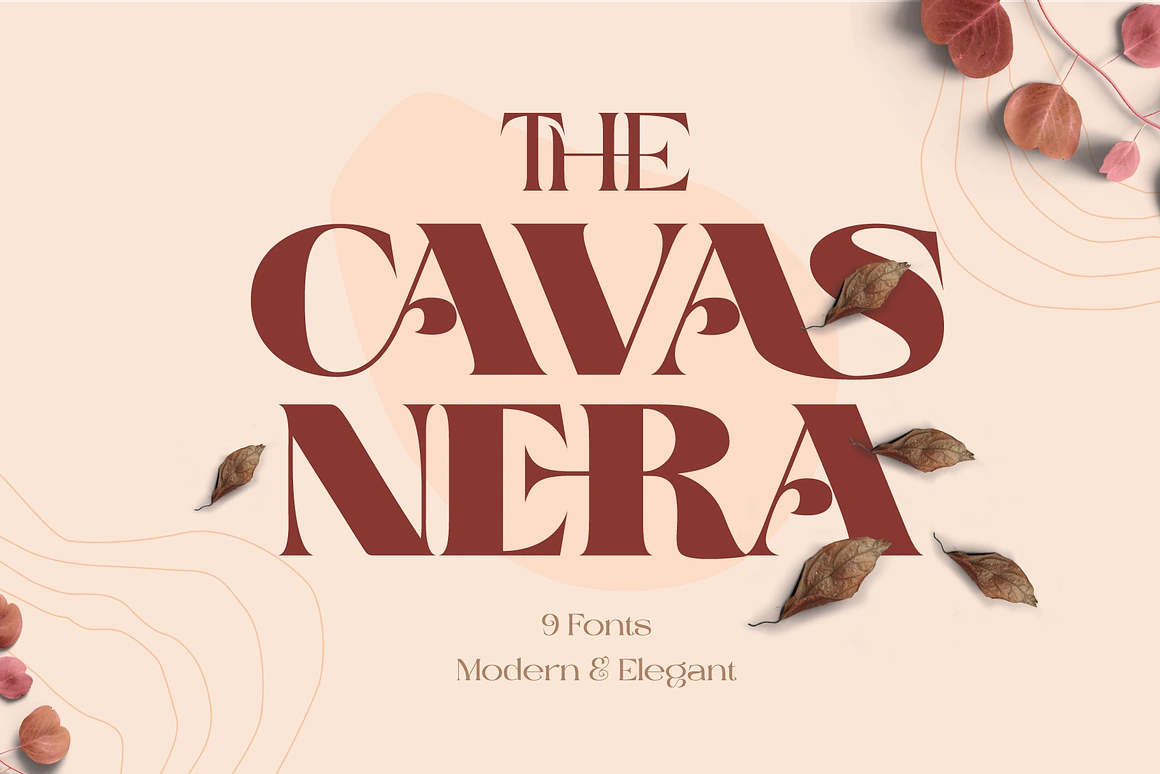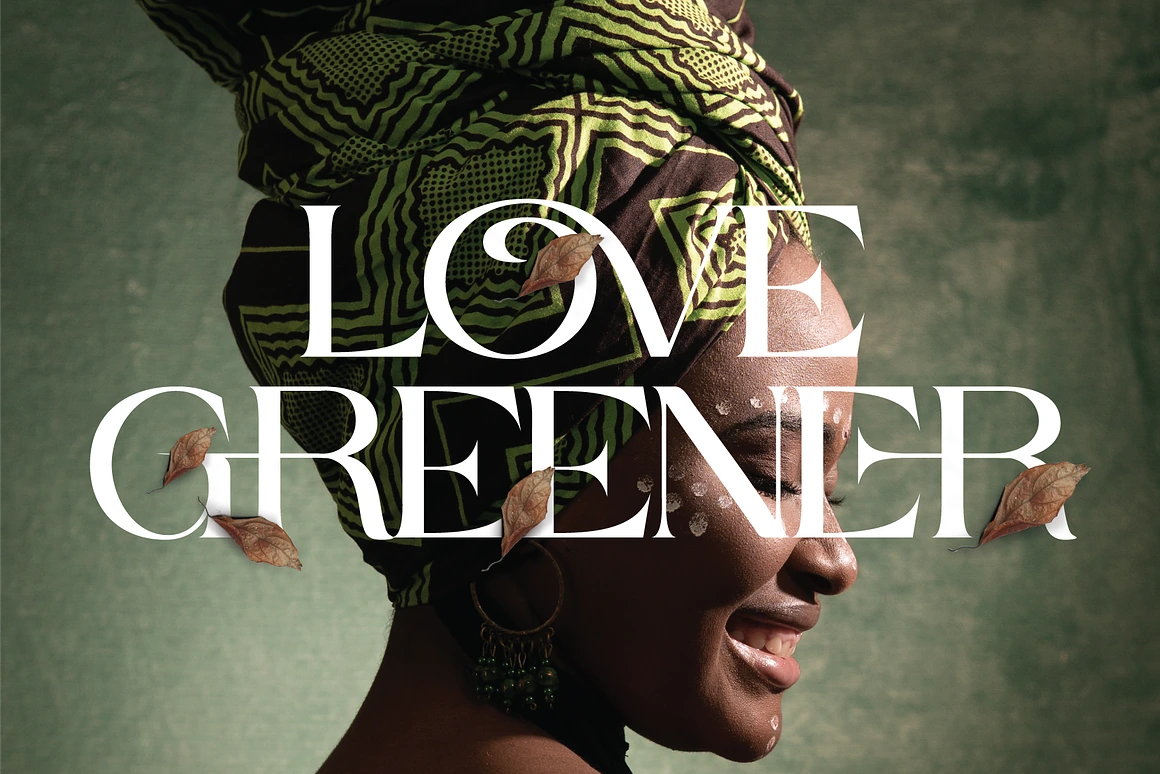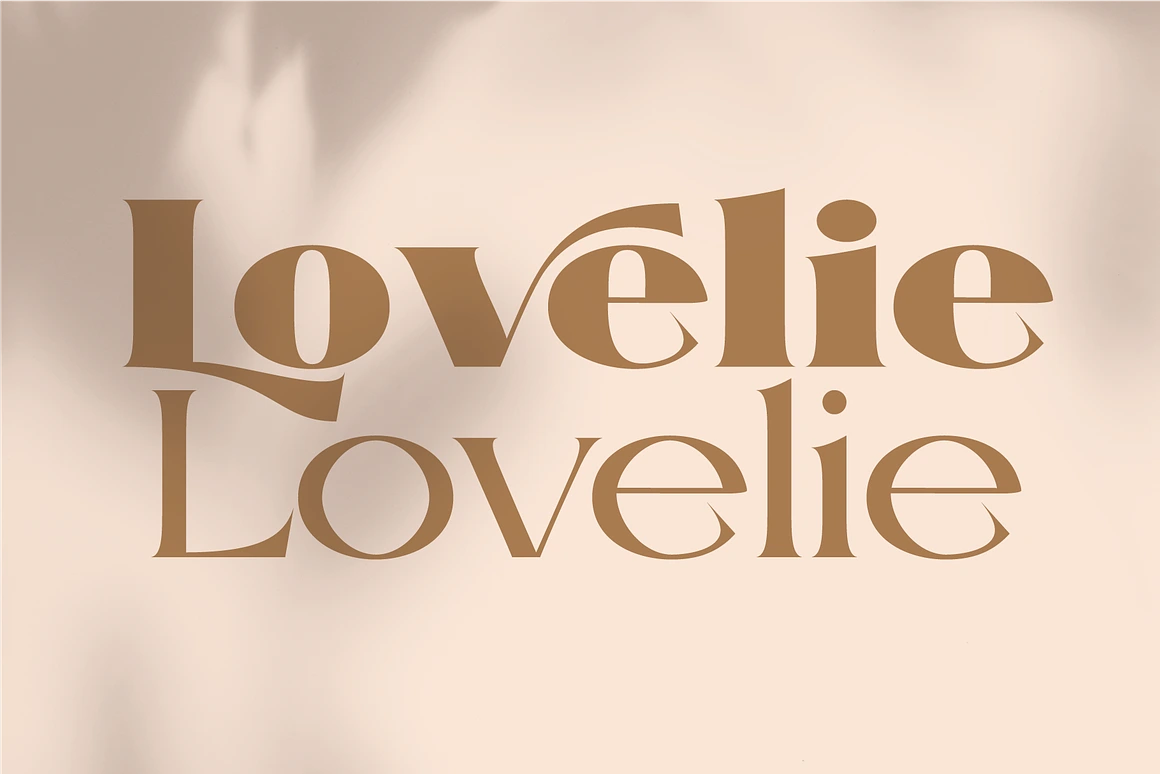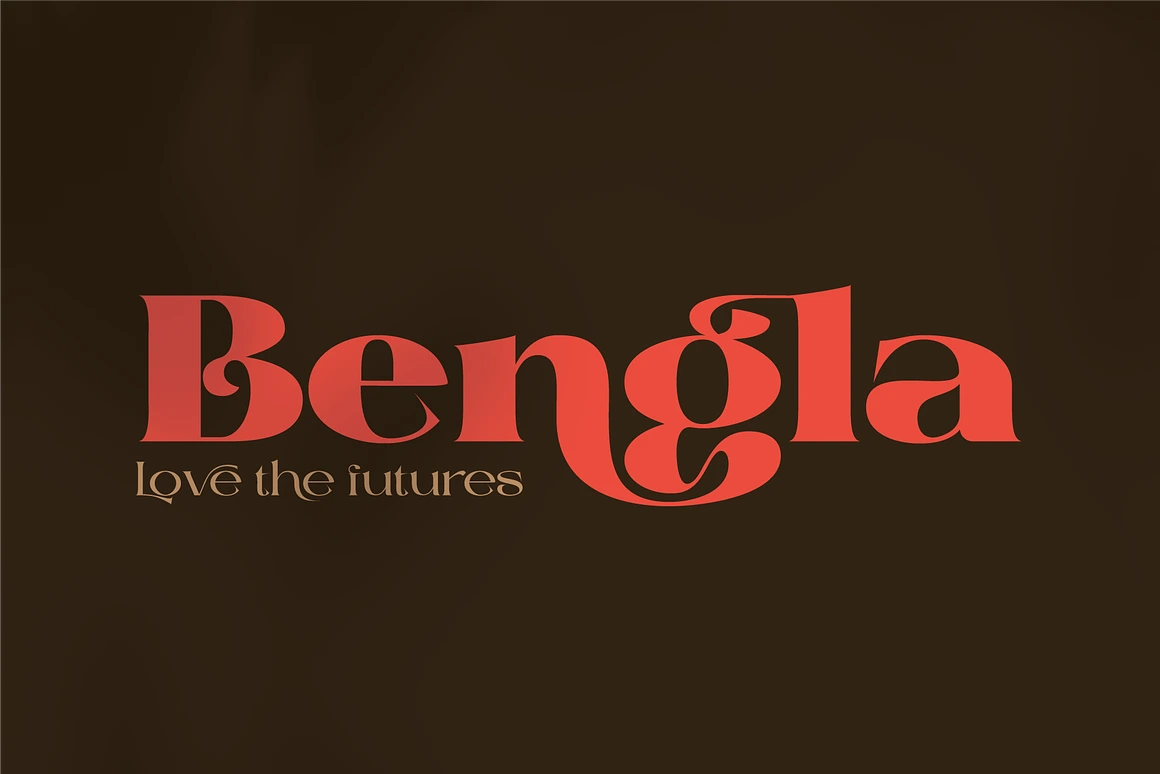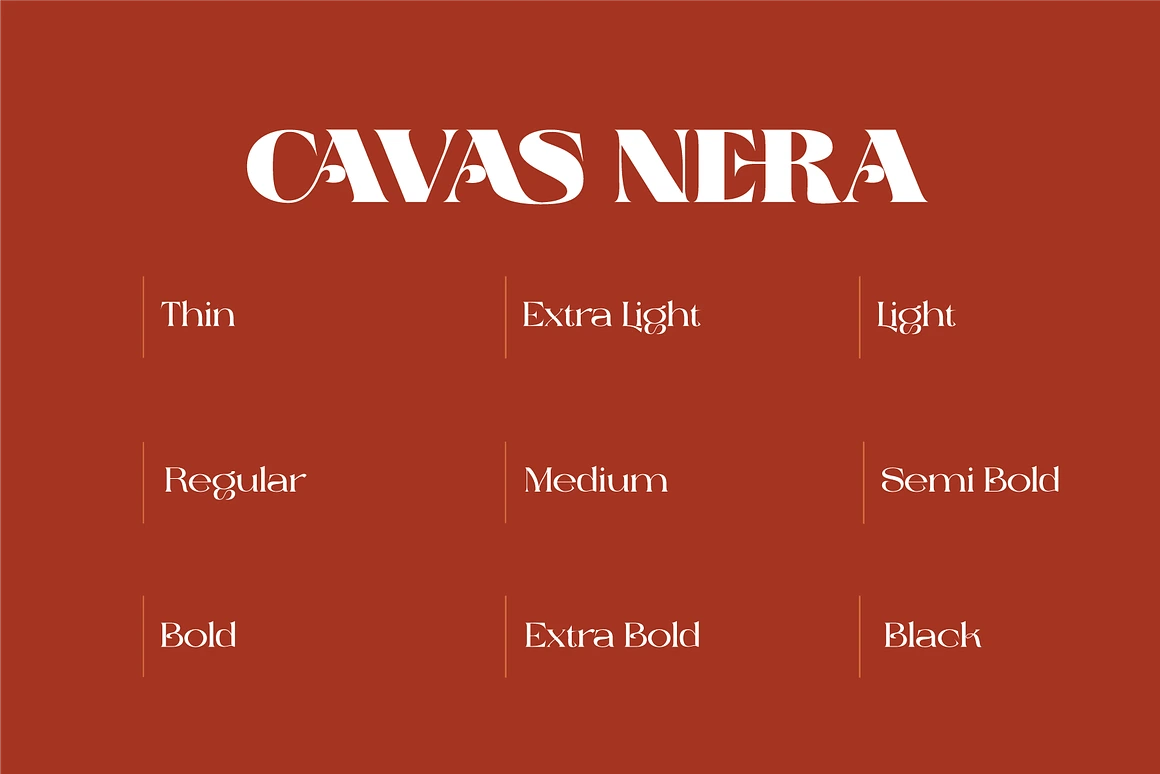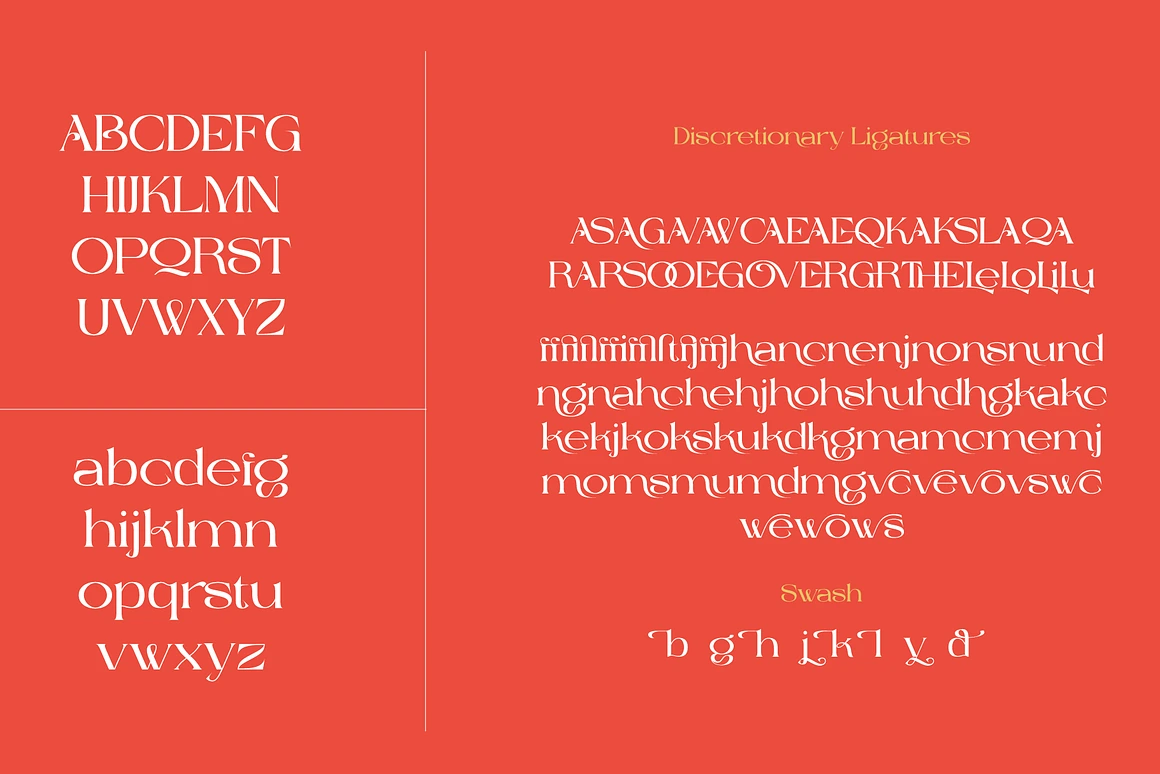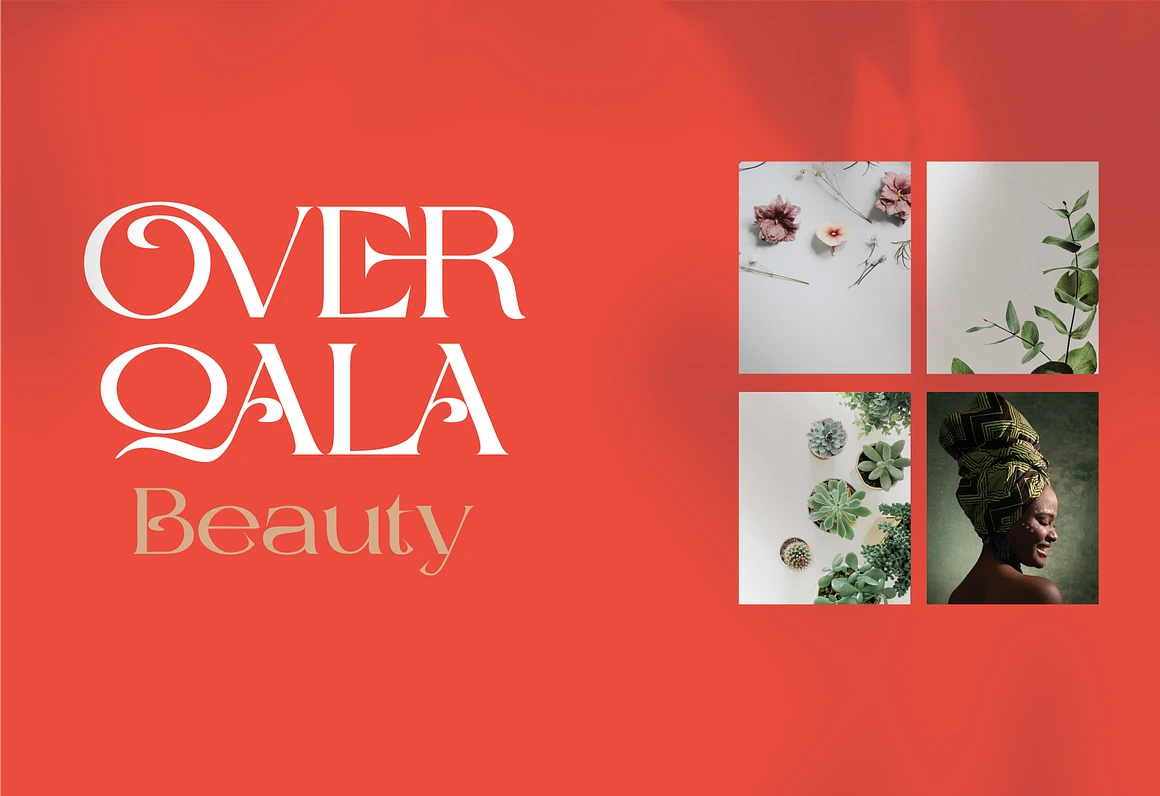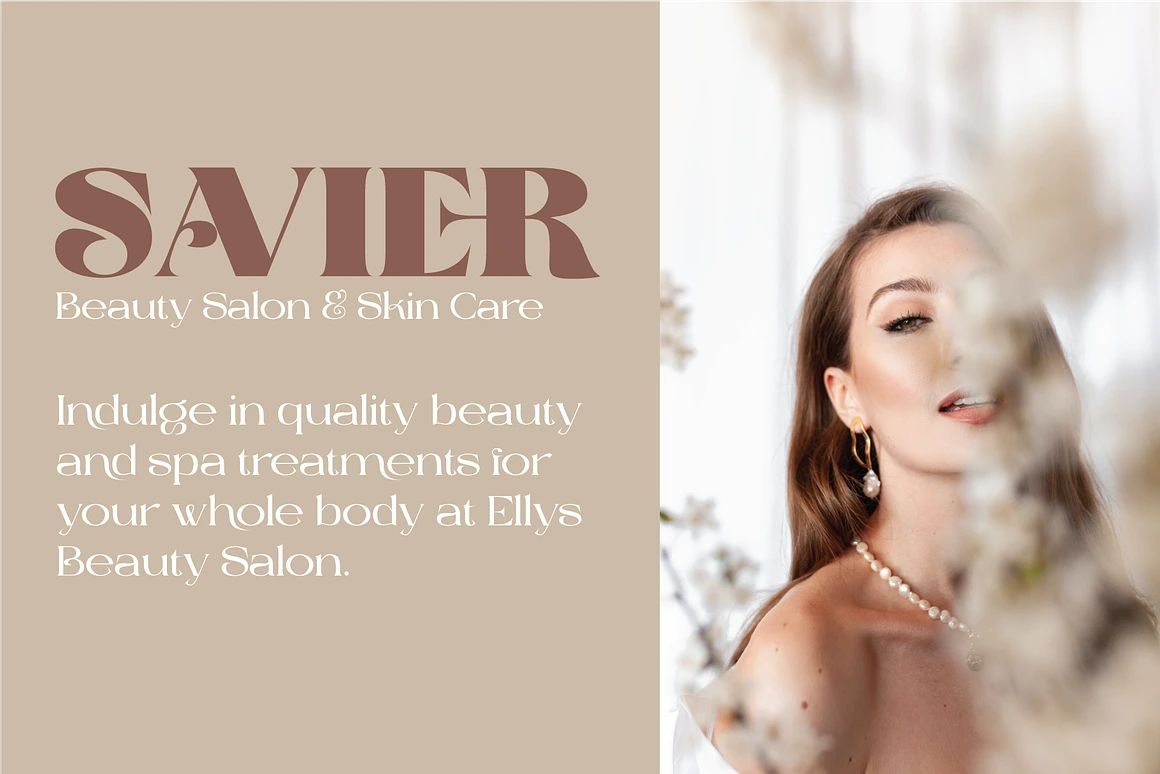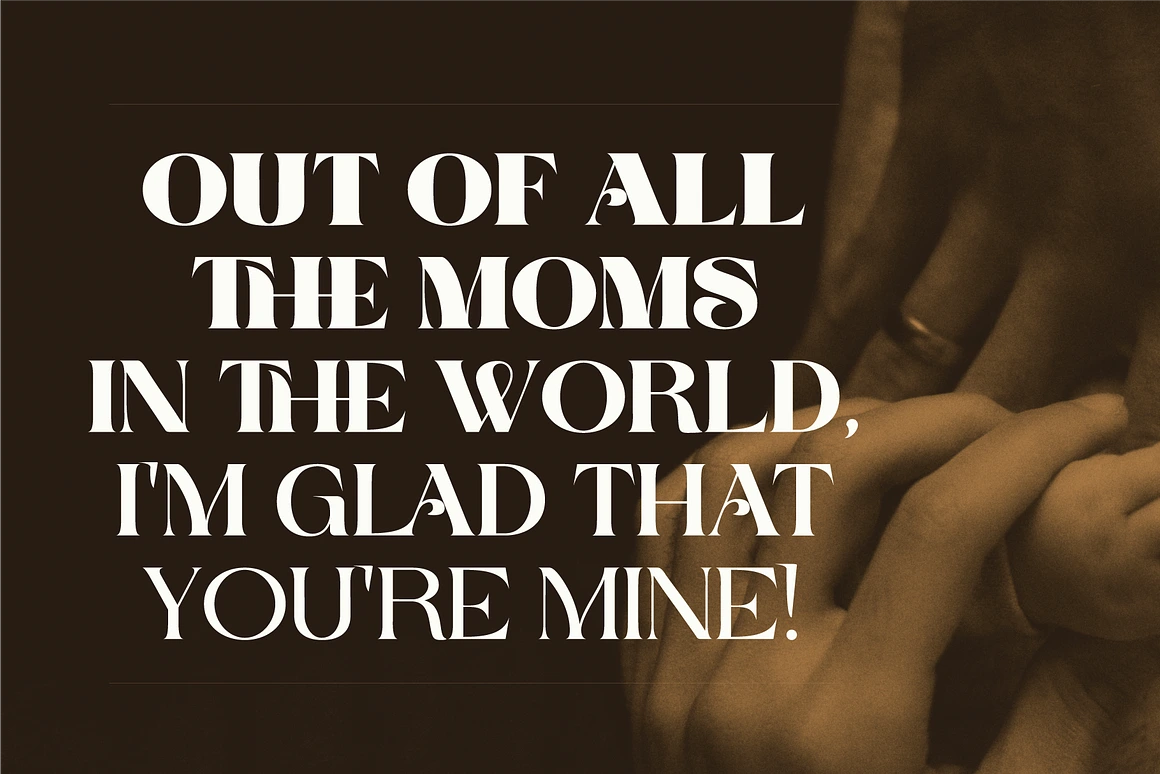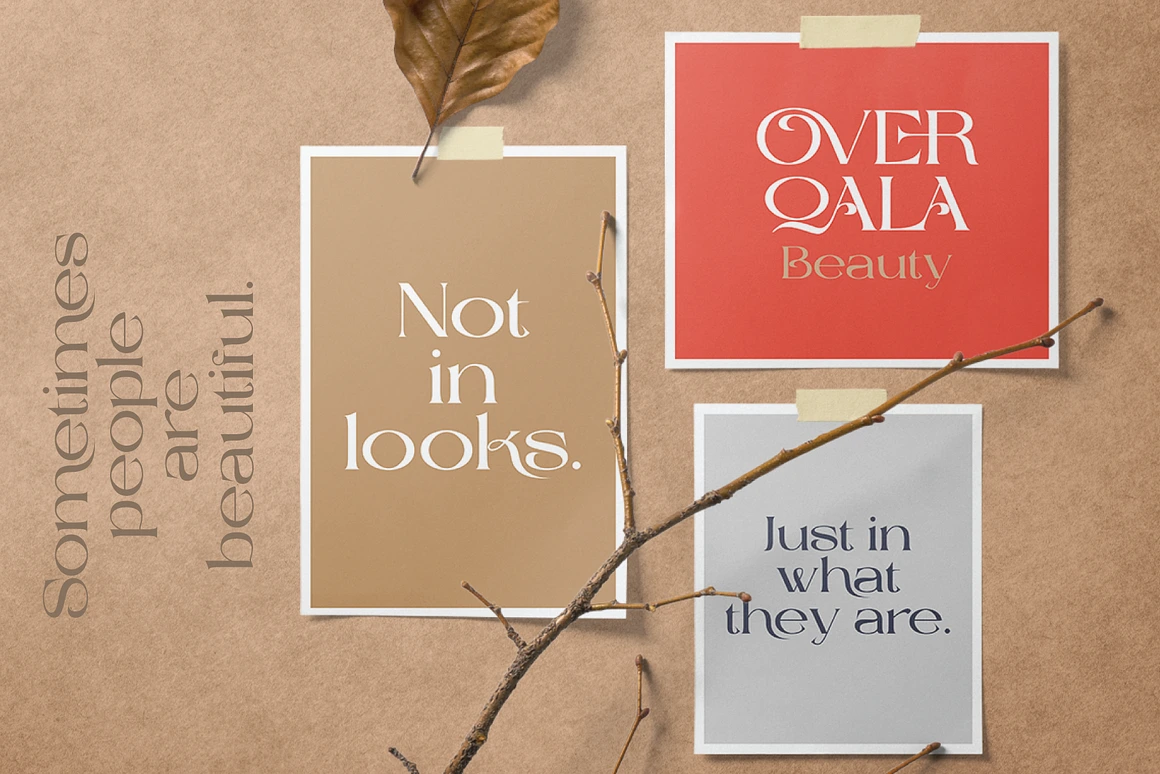
Cavas Nera is a Modern and Elegant font with distinctive ligatures, graceful curves, and sharp contrast. Perfect for luxury branding, premium packaging, fashion editorials, and prestigious design projects.